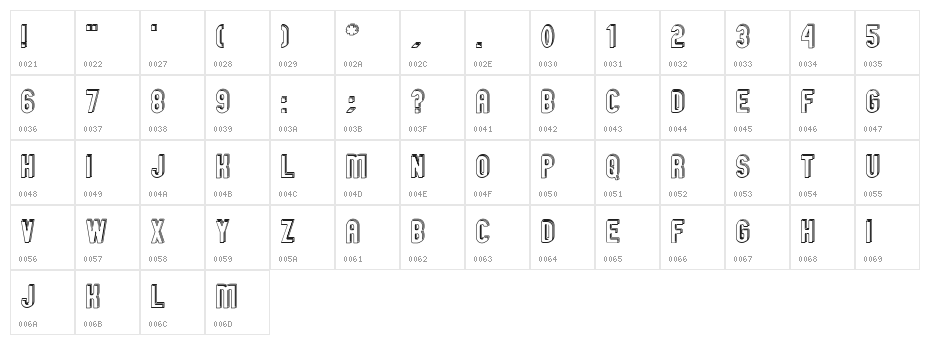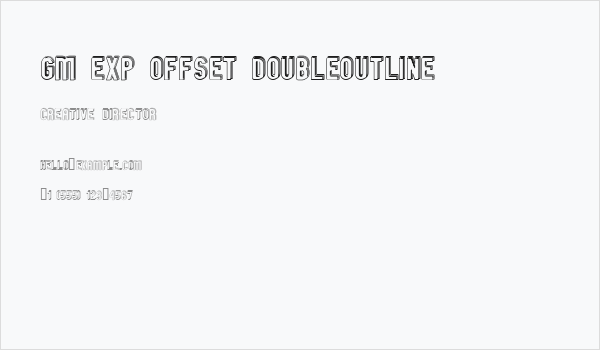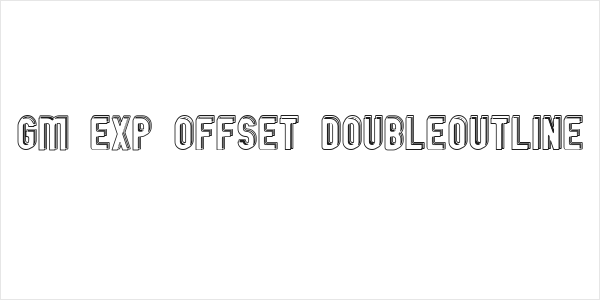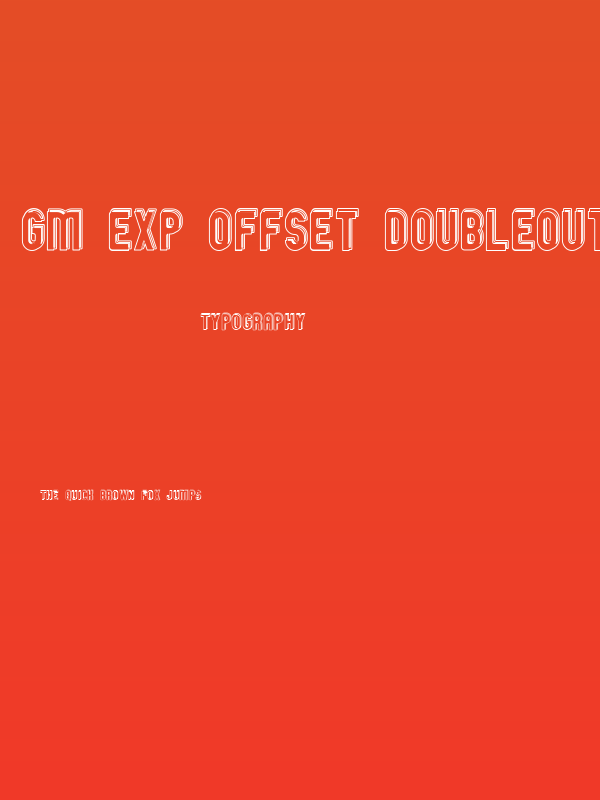
GM Exp Offset Doubleoutline Font
GM Exp Offset Doubleoutline Description
This font features a bold, double-outline design that gives it a striking and impactful appearance. The uppercase and lowercase letters are crafted with precision, maintaining a consistent width and height that enhances readability. The numbers and special characters follow the same stylistic approach, ensuring uniformity across all elements. The font's geometric structure and clean lines make it suitable for modern and contemporary designs. Its unique offset and double-outline effect add depth and dimension, making it ideal for creating eye-catching headlines, posters, and branding materials.
| Proposed Projects | Ideal for headlines, posters, branding, and any project requiring a bold, modern look. |